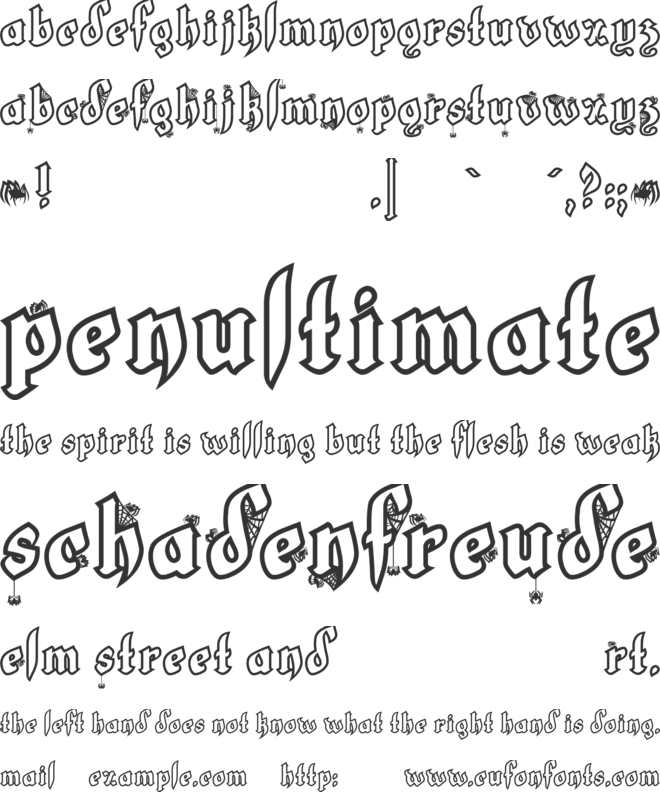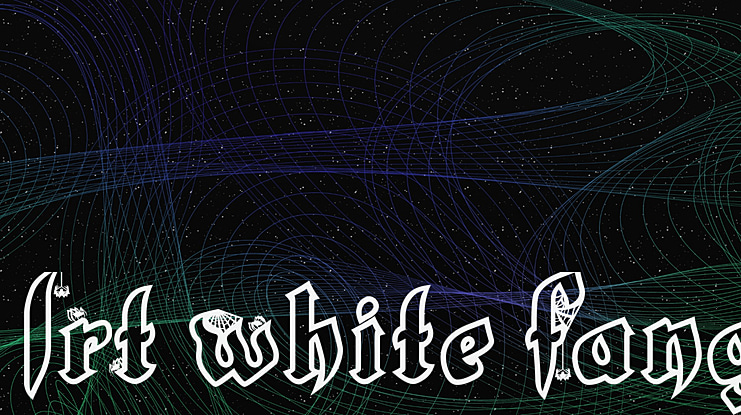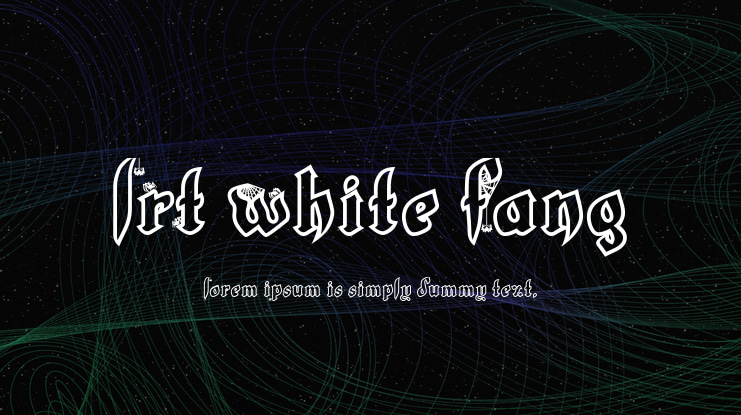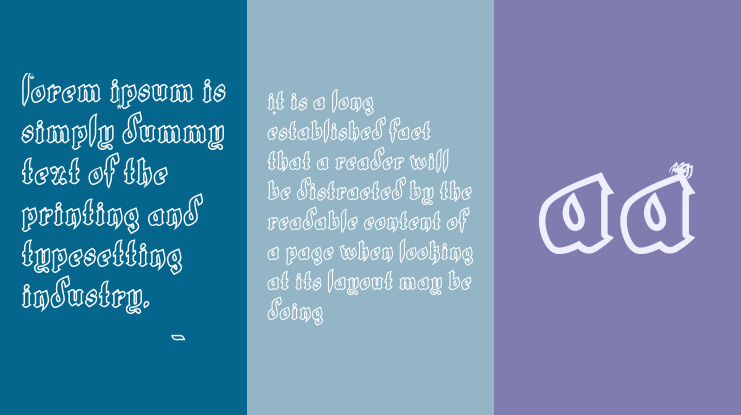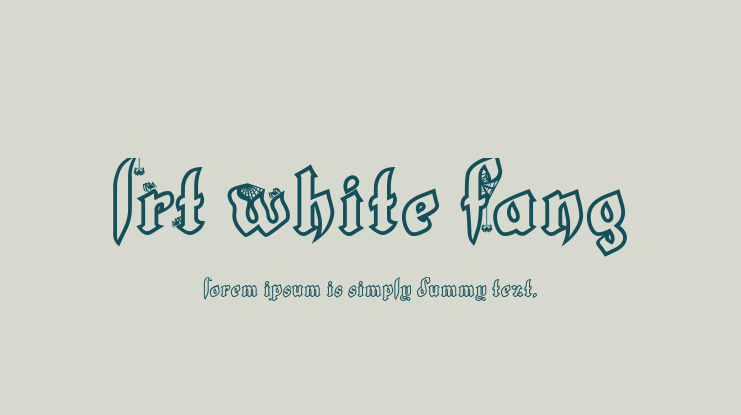
LRT White Fang Font
Capital letters feature spider and web details, lowercase letters are plain. Stay tuned for many more variations of this typeface!